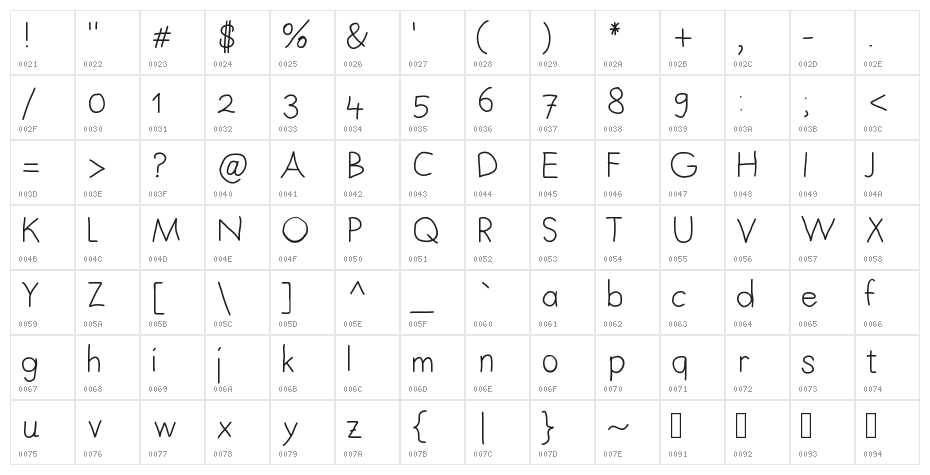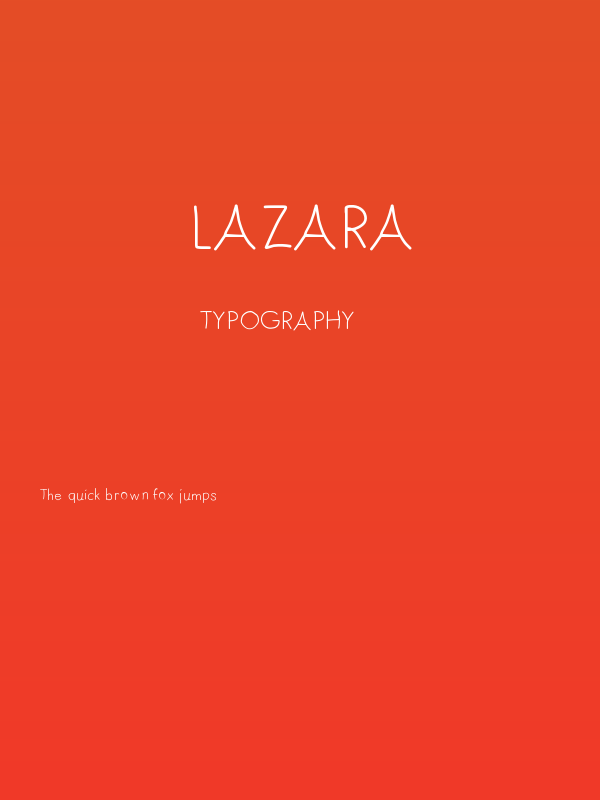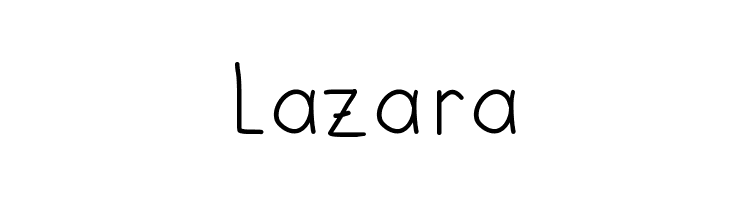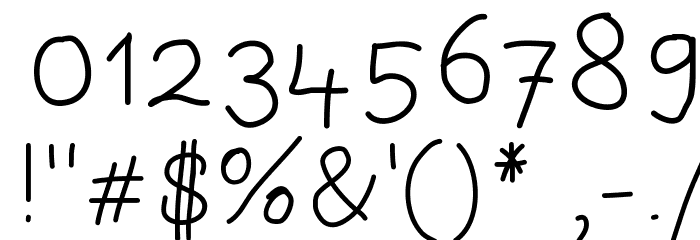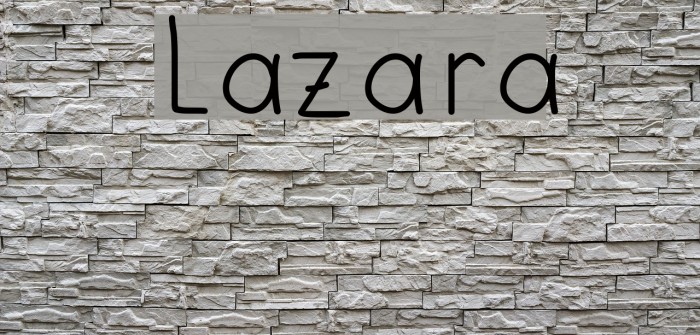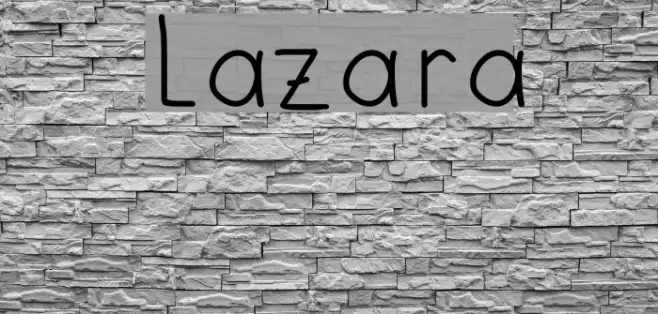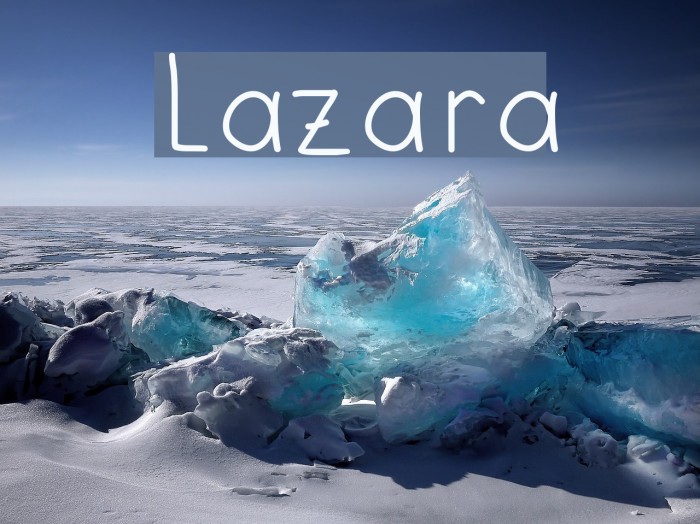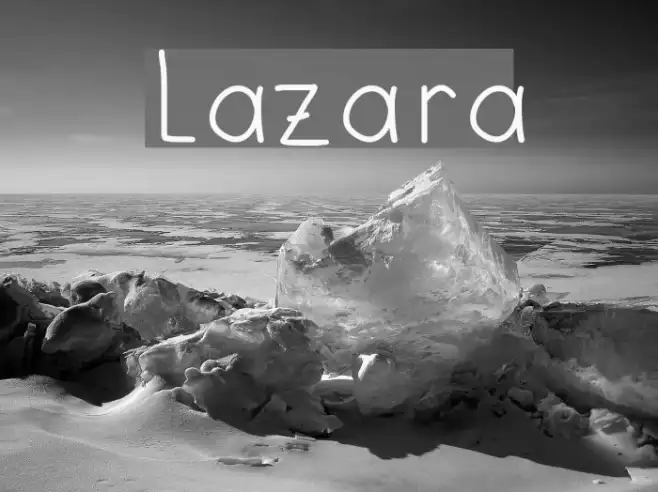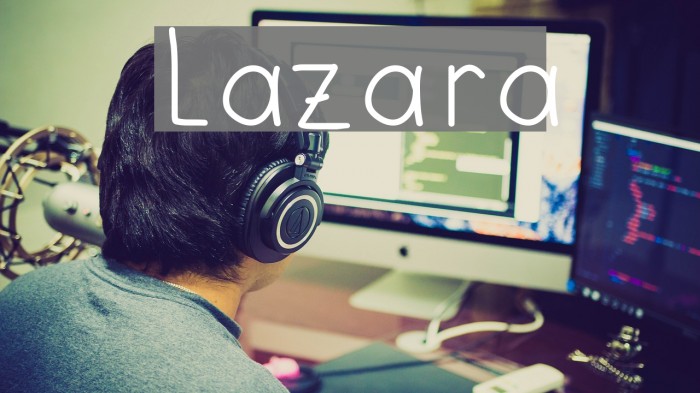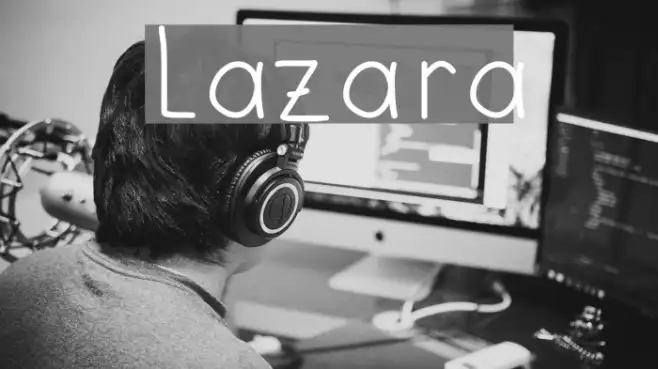
Lazara Font
Lazara Description
This playful and whimsical font features a handwritten style with a casual and informal appearance. The characters are slightly irregular, giving it a charming and approachable feel. The strokes are consistent in width, providing a uniform look across all letters and numbers. The font includes both uppercase and lowercase letters, numerals, and a variety of special characters, making it versatile for different uses. Its rounded edges and smooth curves contribute to its friendly and inviting aesthetic, making it suitable for projects that require a personal touch.